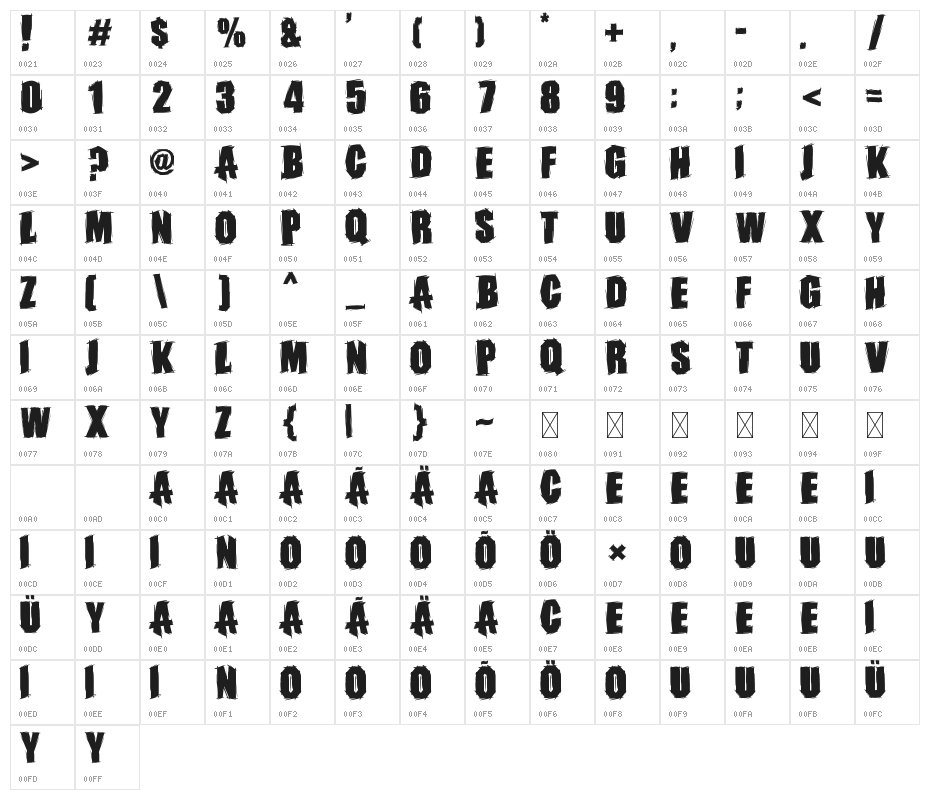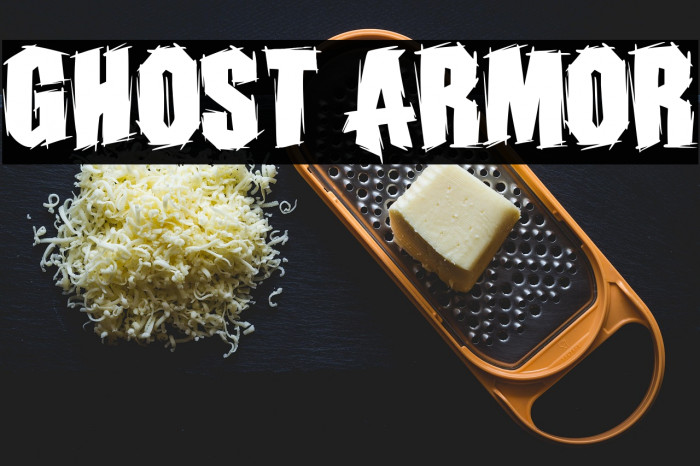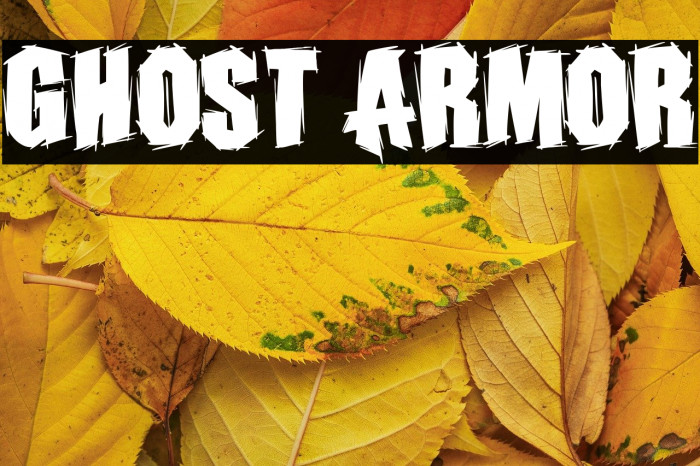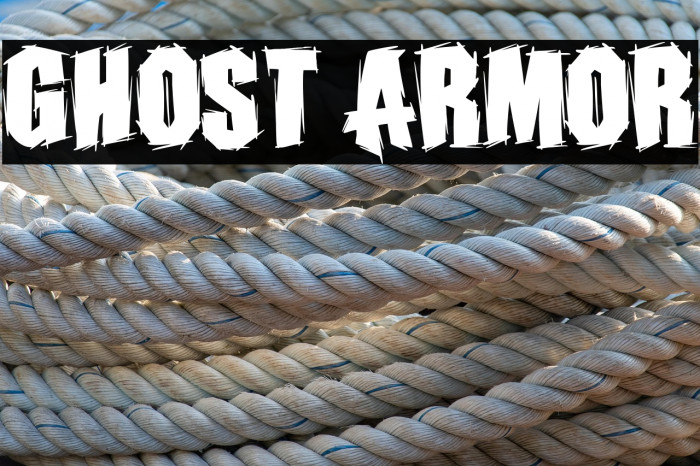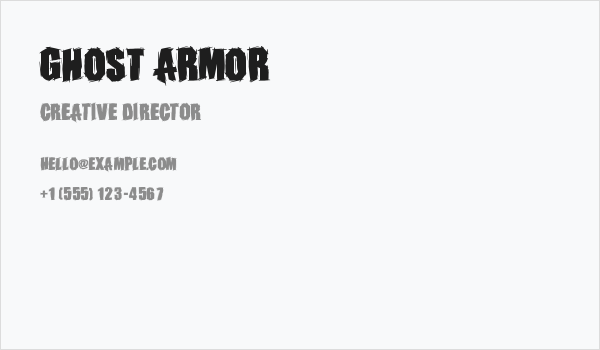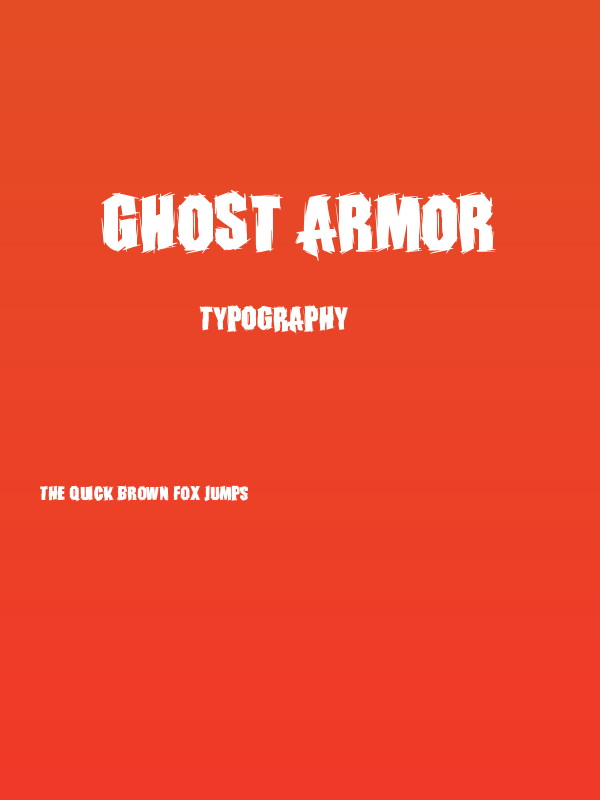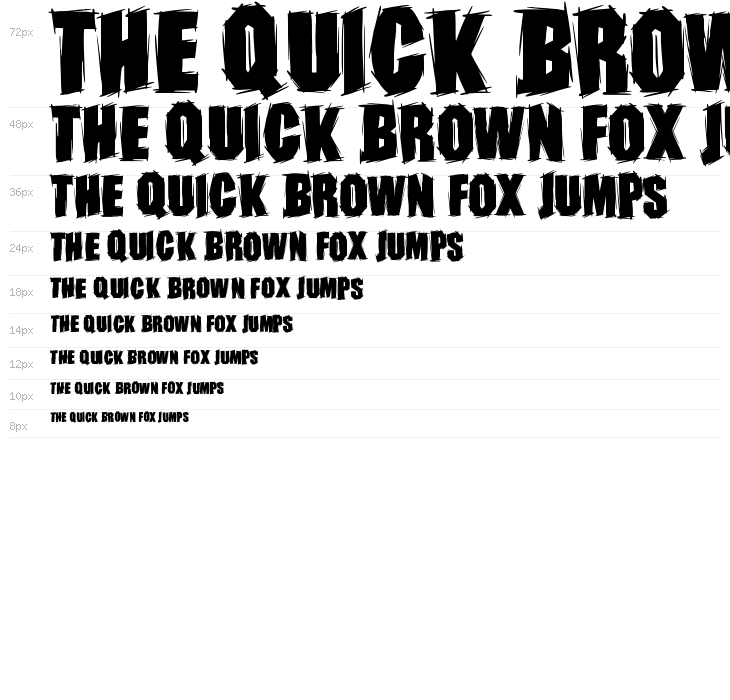
Ghost Armor Font
Ghost Armor Description
This font features a bold and aggressive style with sharp, jagged edges that give it a rugged, distressed appearance. The characters are heavily stylized, with irregular strokes and a dynamic, energetic feel. The uppercase and lowercase letters maintain a consistent design, emphasizing the font's boldness and impact. Numbers and special characters follow the same aesthetic, ensuring a cohesive look across all text elements. The font's unique design makes it stand out, ideal for projects that require a strong visual presence.
| Proposed Projects | Ideal for posters, album covers, video game graphics, and branding that requires a bold, edgy look. |